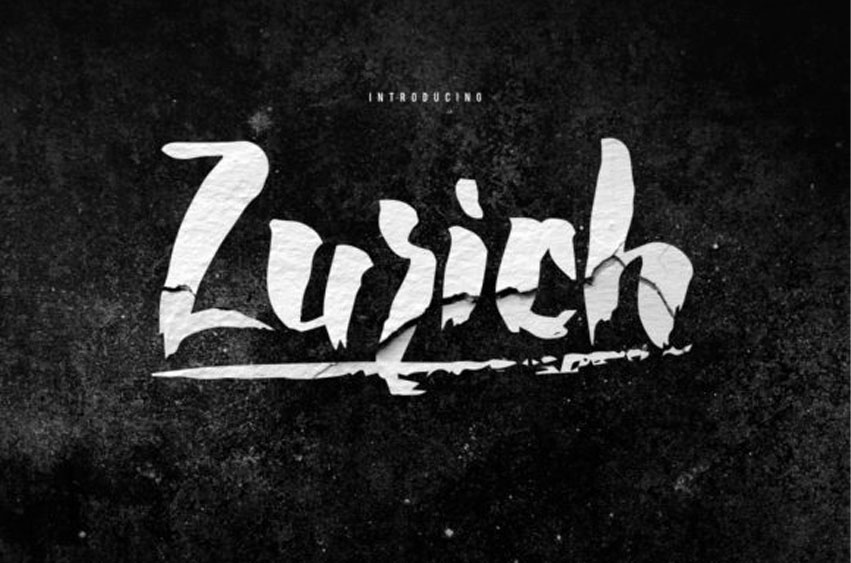
Zurich Font
Zurich Font is a chunky and bold display font with a rough edge.
This font is well-suited for a variety of contexts, such as print design, promotional materials, or magazine layouts.